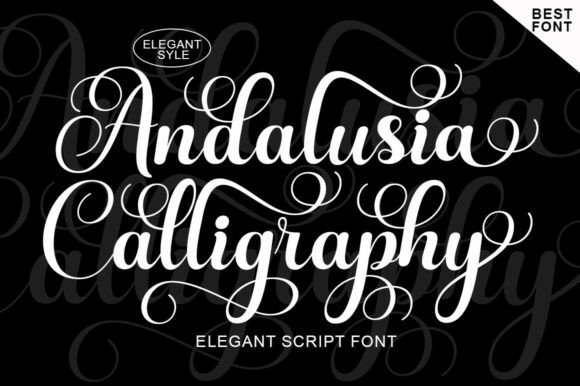
Adenman Posted 10 hours ago Share Posted 10 hours ago Andalusian Calligraphy is an elegant script font featuring beautiful character variations. This font combines a luxurious style with a modern touch, carefully designed for an elegant look. This font is visually appealing, clean, feminine, and easy to read thanks to its luxurious letter connections. Its classic style is perfect for a variety of formal uses, including invitations, labels, restaurant menus, logos, fashion, makeup, stationery, novels, magazines, books, greeting and wedding cards, packaging, and all types of advertising. With the included PUA encoding, all special characters and decorative elements are easily accessible without additional software. Compatibility: windows & apple/mac & linux Giveaway Link –> https://www.creativefabrica.com/product/andalusia-calligraphy/ kameli 1 Quote Link to comment Share on other sites More sharing options...